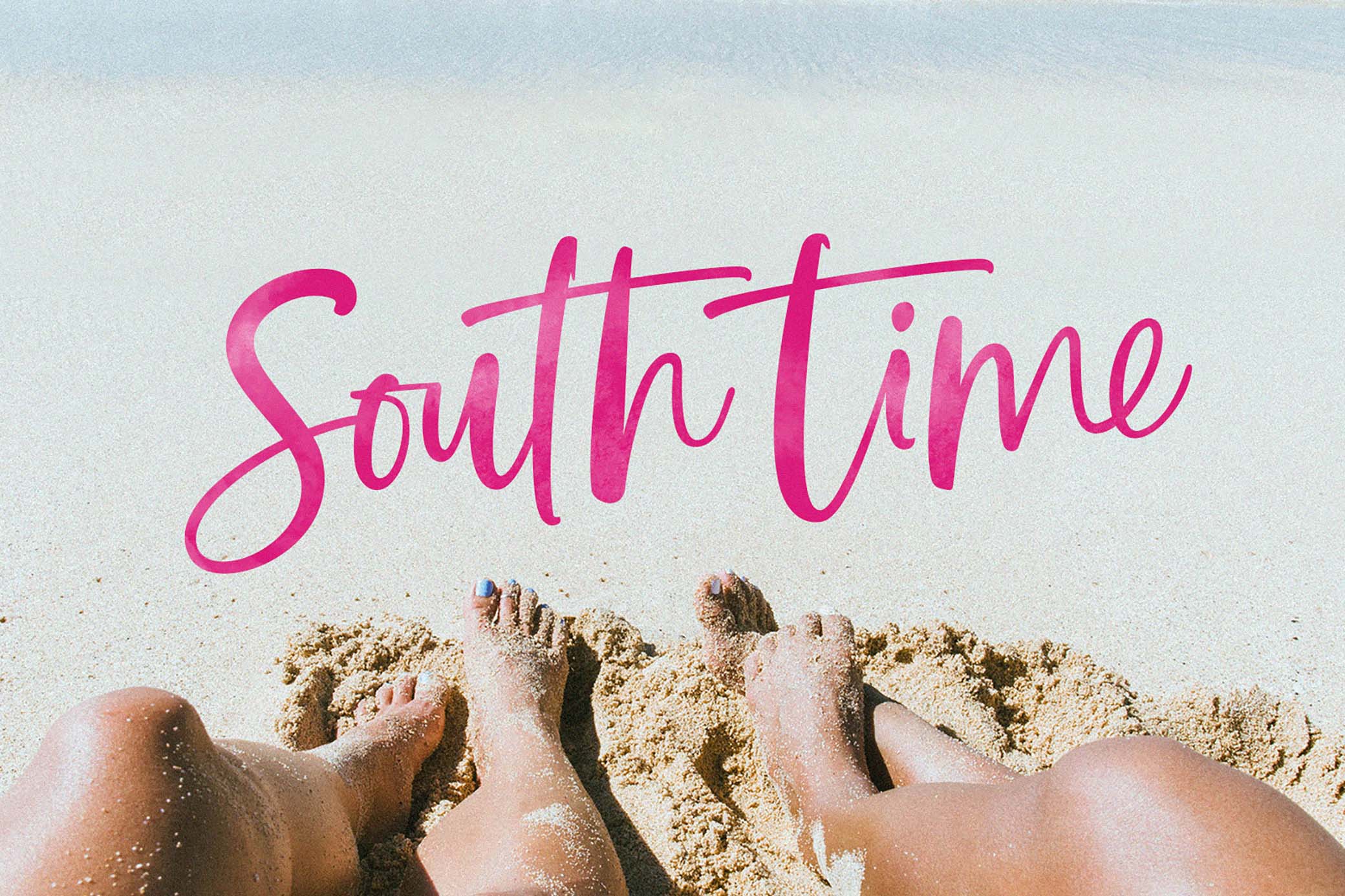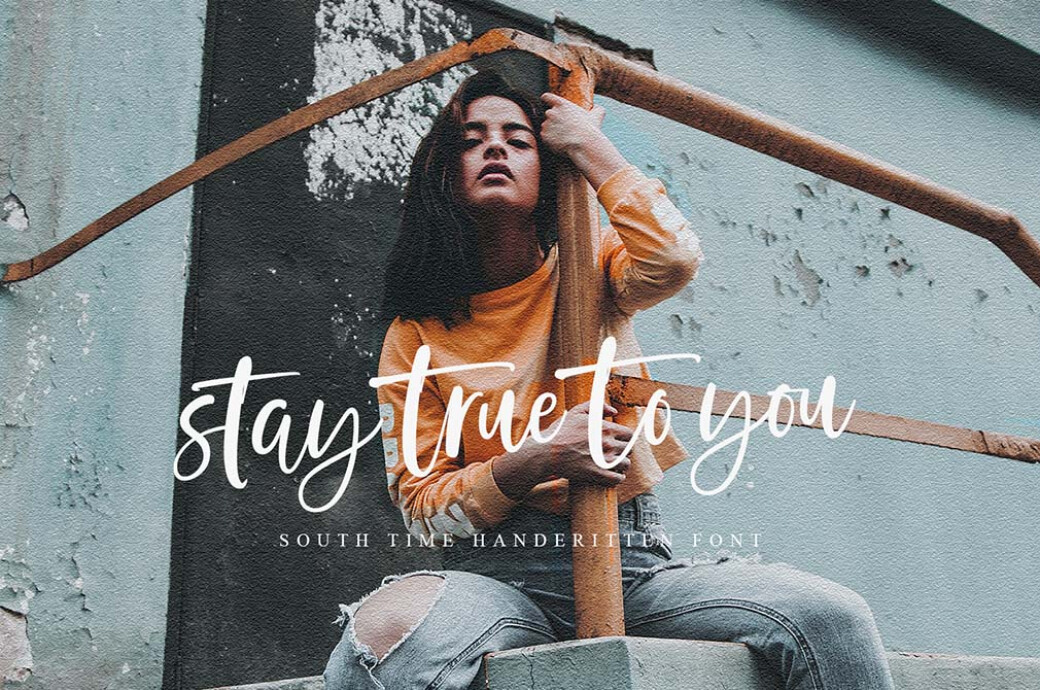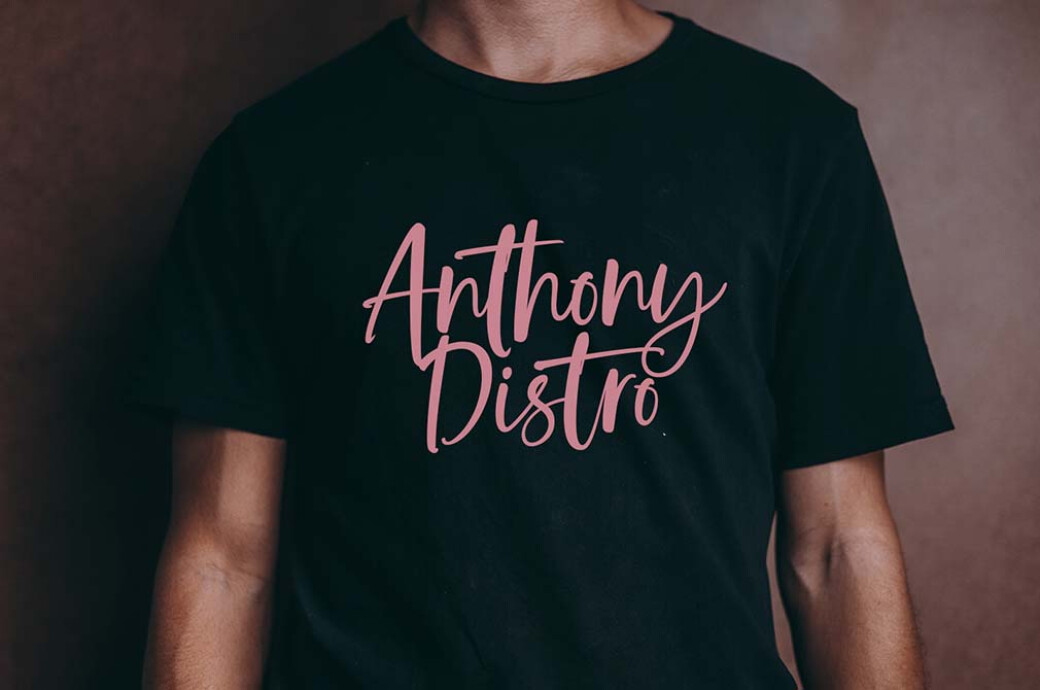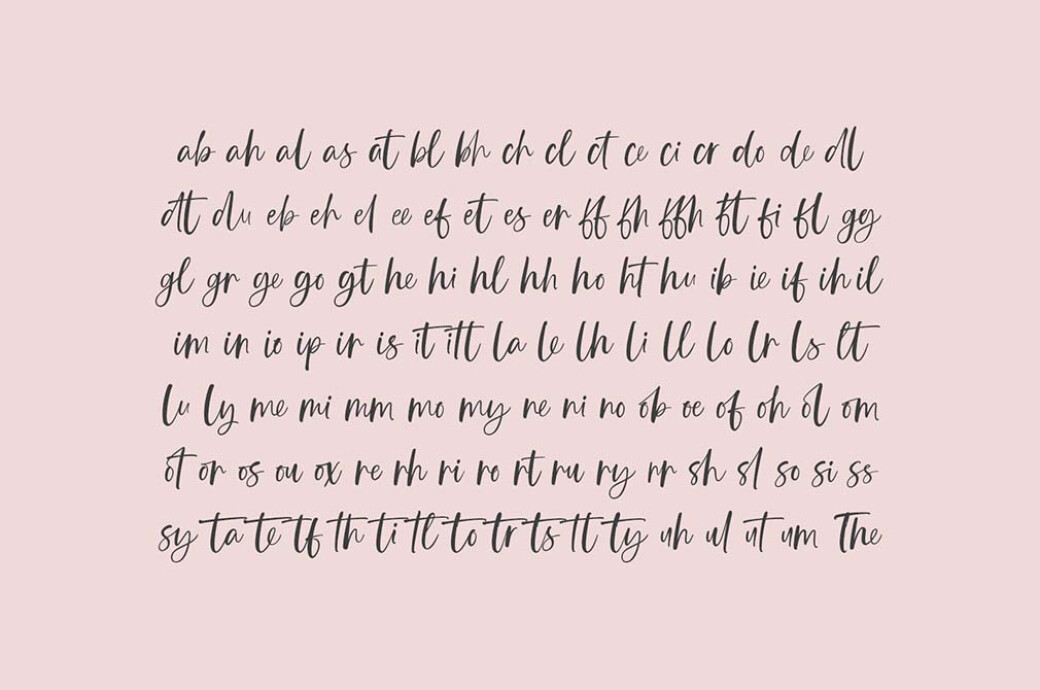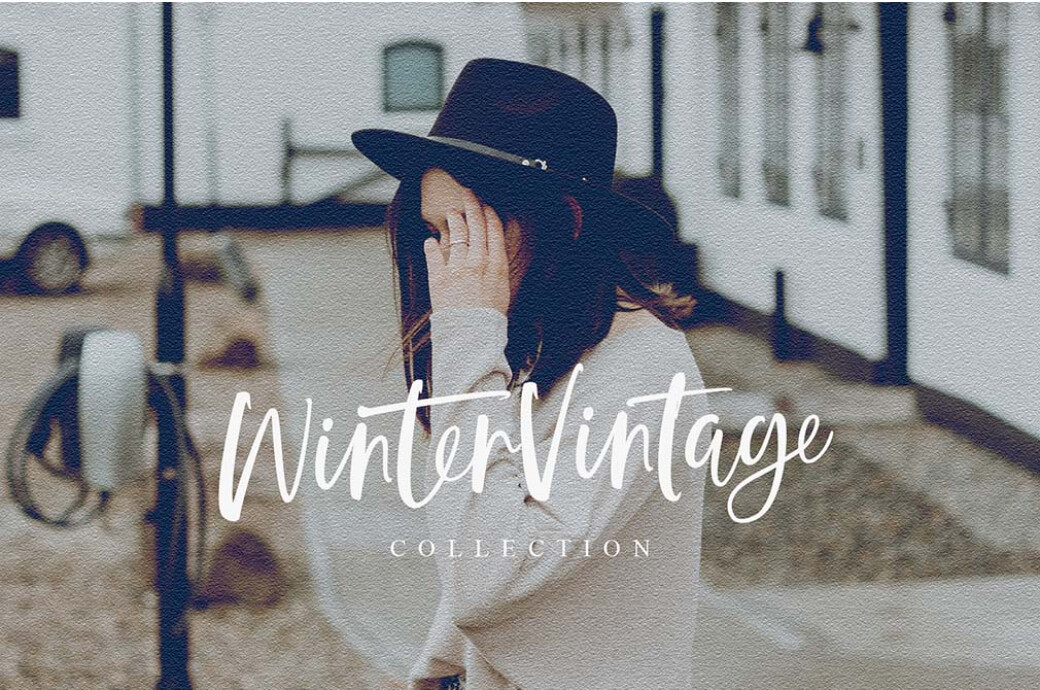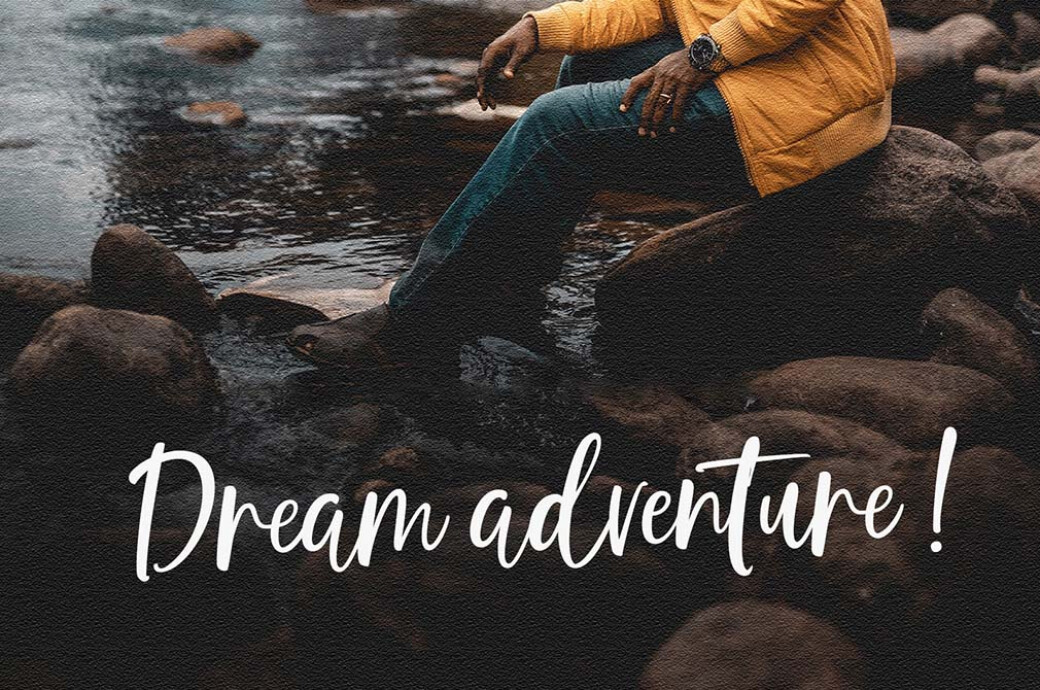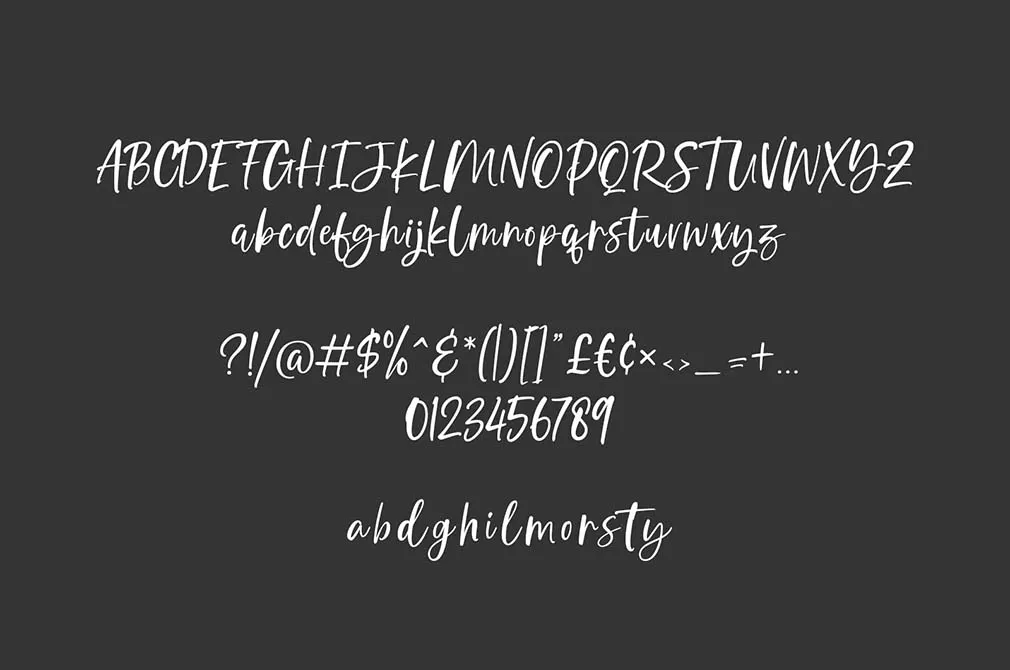
South Time Script
Meet South Time, a lovingly drawn script type. You can use it to capture the nostalgic typographic vibe and let it warm your designs: anything, from cards to posters.The South Time is a casual-chic handwritten script typeface with exquisite accents, perfect for everyone seeking a freeform type with character! It suits many projects: logo design, branding, packaging, blog graphics, stylizing quotes, wedding stationery, art prints, collateral design, packaging, social media, and so on. In fact, we’ve truly enjoyed exploring this font with all its characters, symbols, ligatures & multilingual support. And we hope it will bring some magic into your work too!